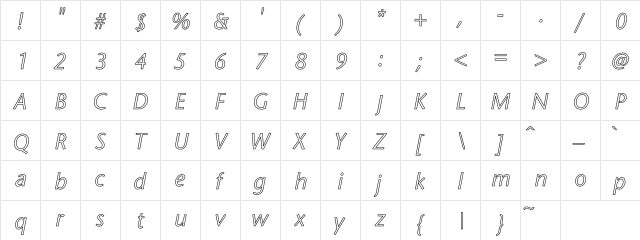
SapirSansItalic Hollow Regular
Design Context for SapirSansItalic Hollow Typeface
SapirSansItalic Hollow takes a measured approach to typography — its balanced proportions and neutral character make it a reliable workhorse for both digital and print work. Its italic angle brings a sense of urgency and motion to the letterforms.
Pro Tip: Try SapirSansItalic Hollow for annotation and caption copy alongside an upright companion — the contrast in angle creates a dynamic but ordered typographic system.